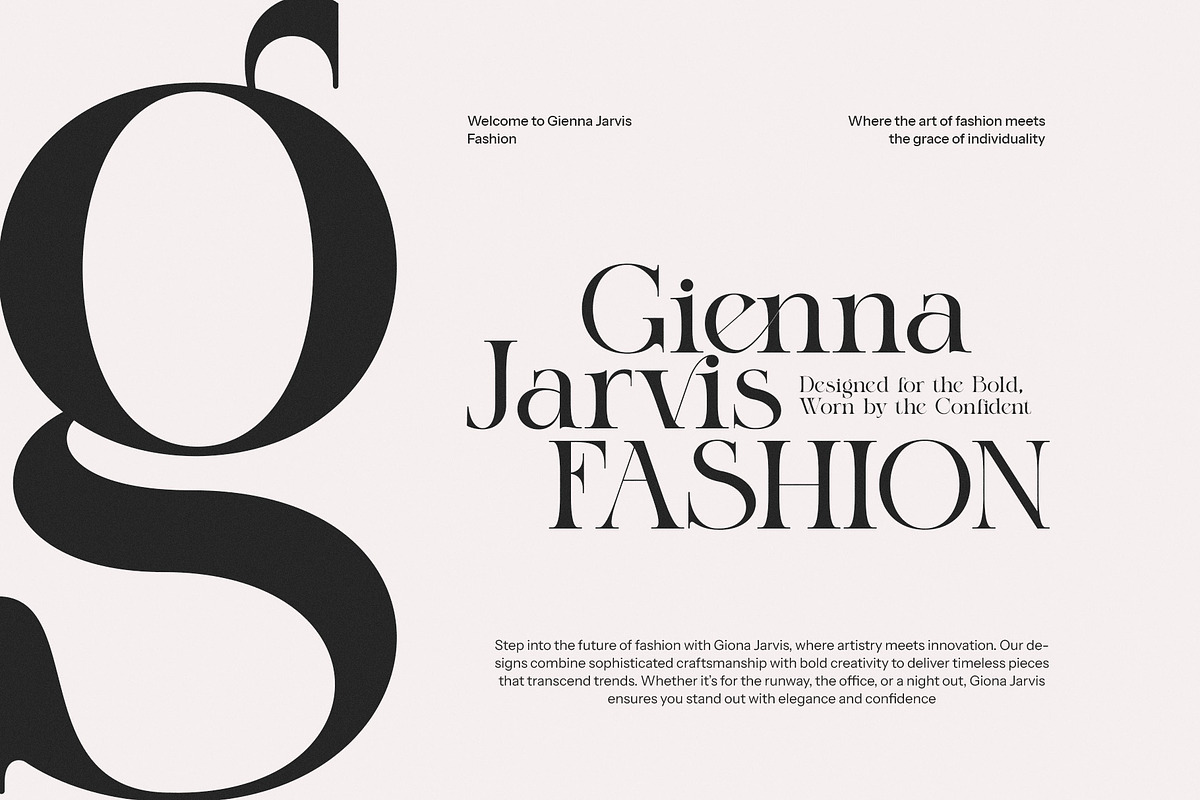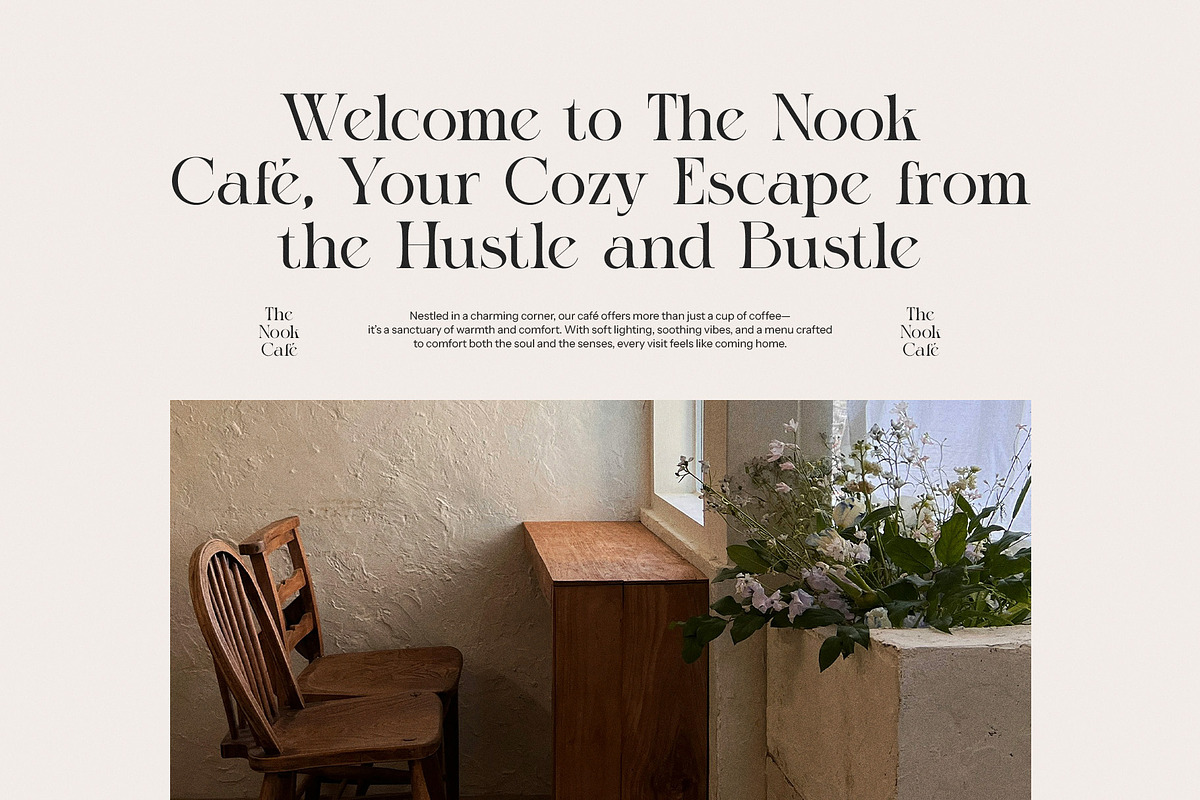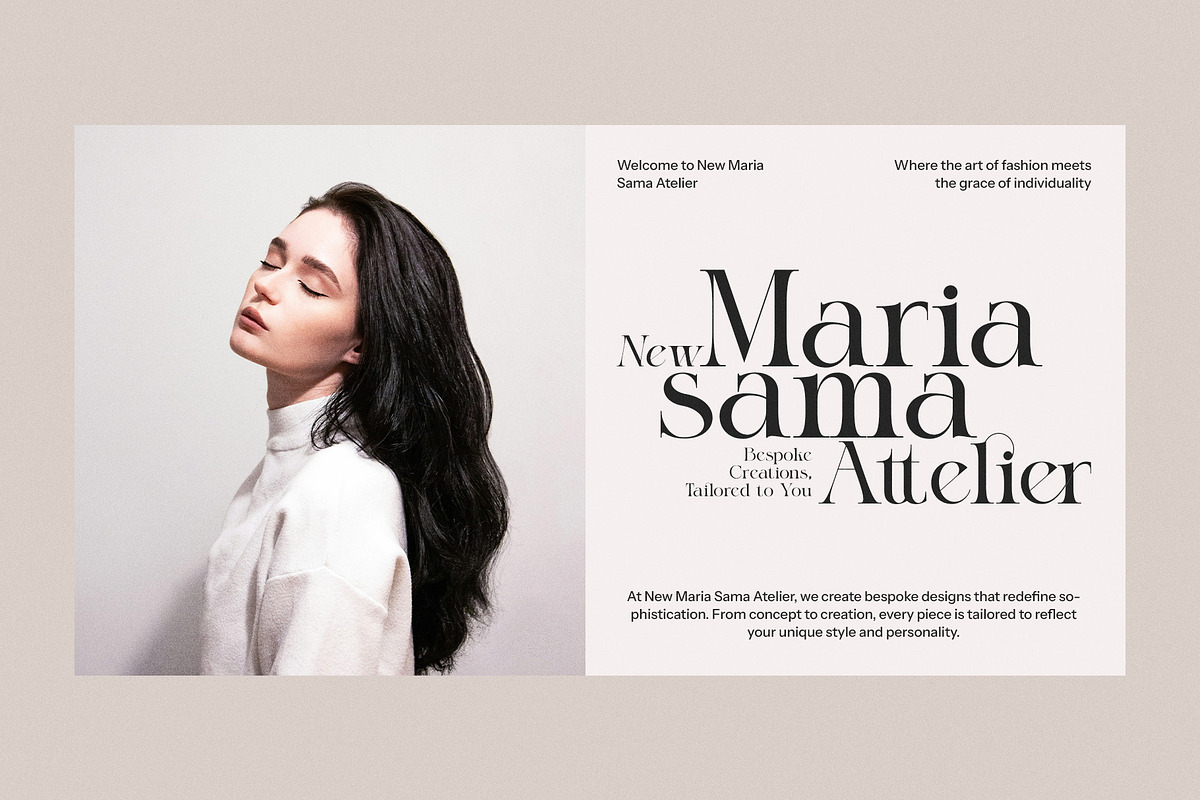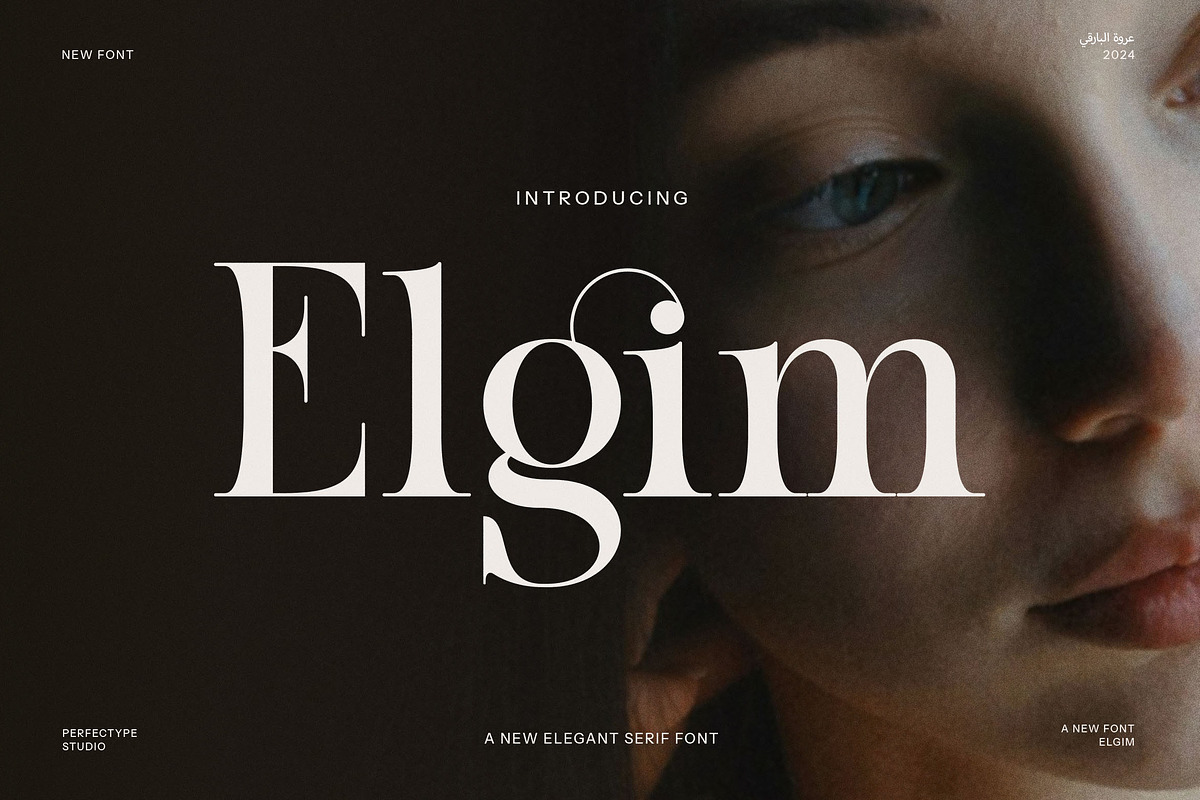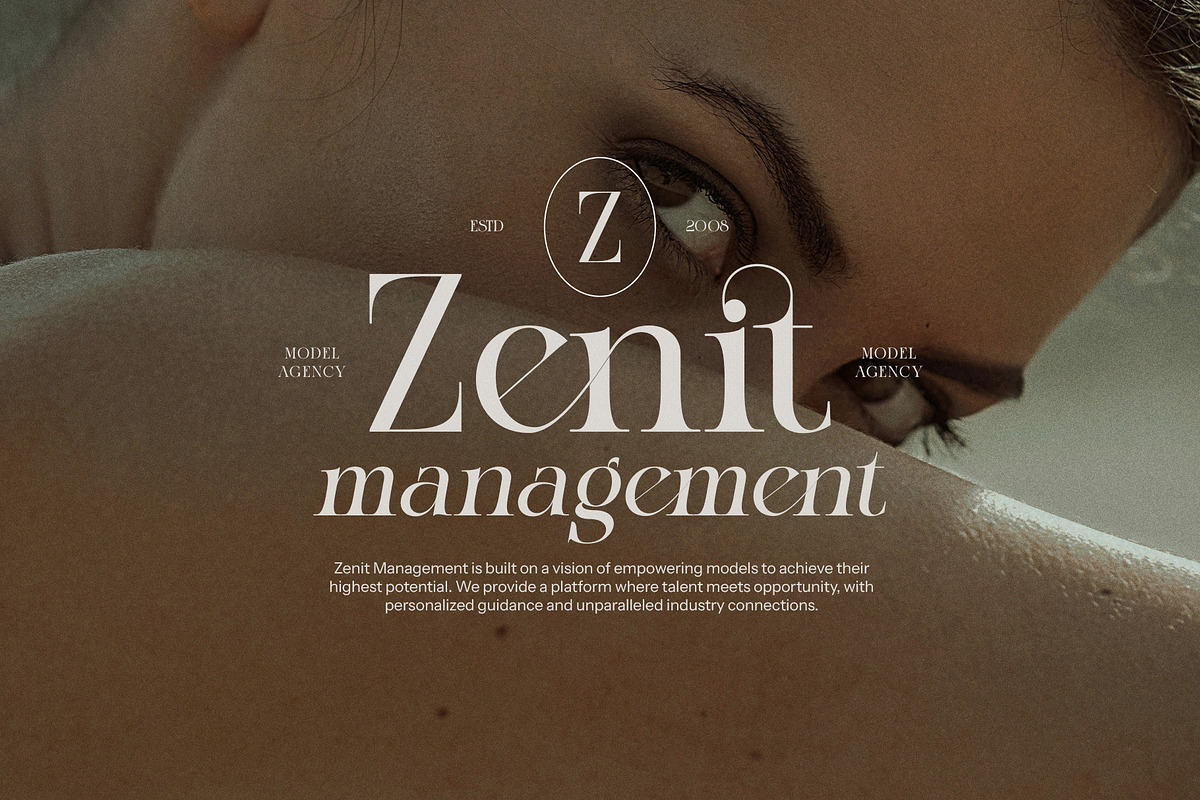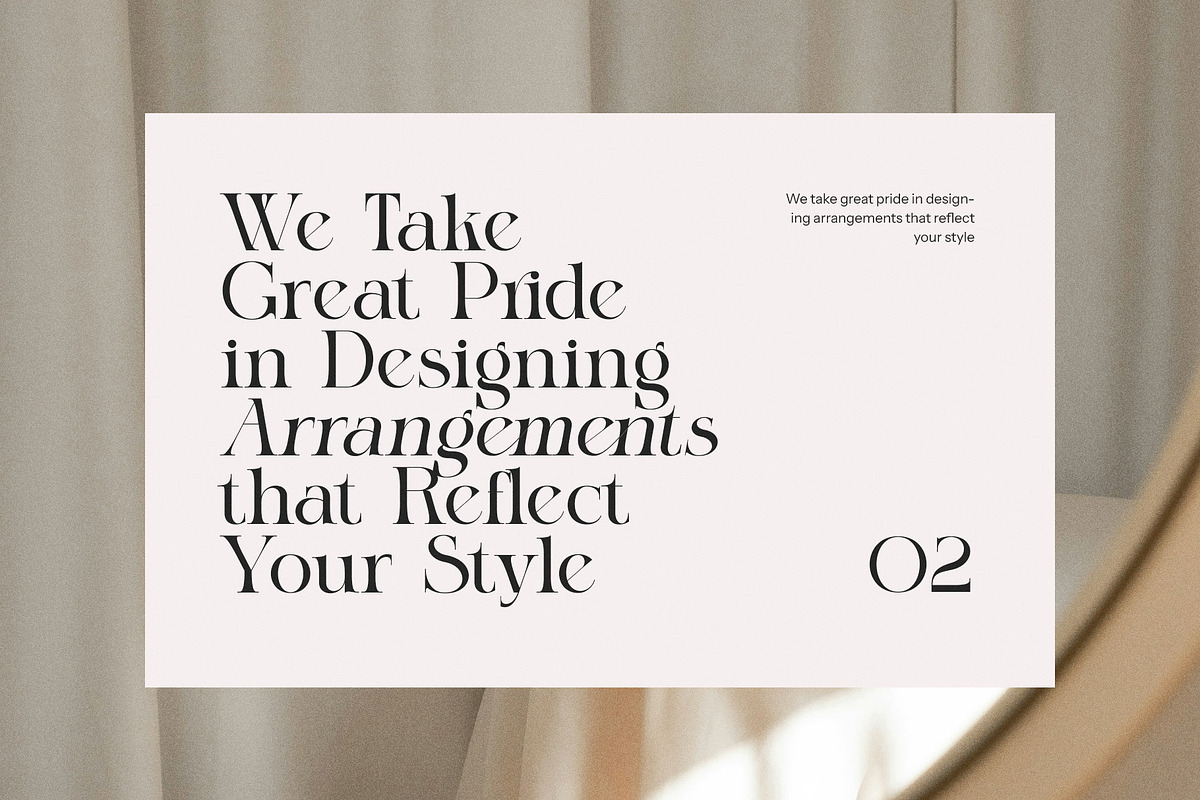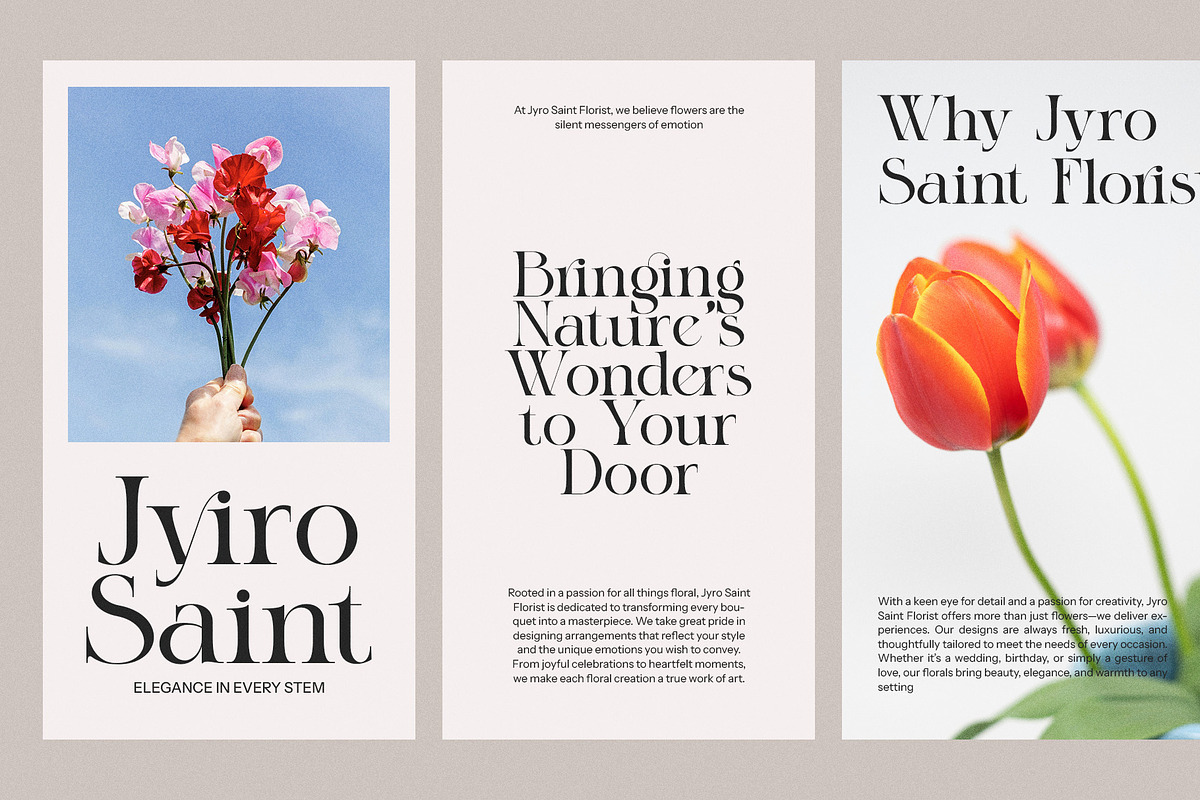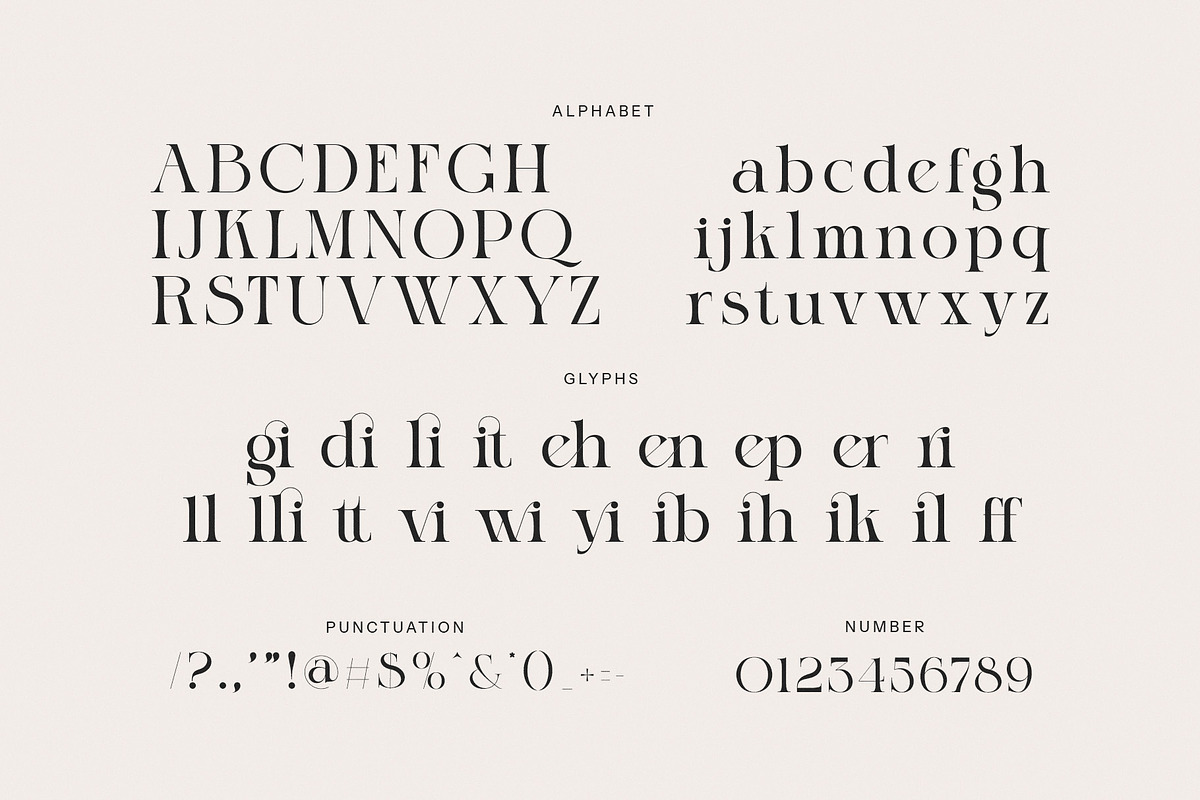
Elgim Elegant Serif Font
Elgim Elegant Serif Font is a beautifully crafted typeface that embodies sophistication and timeless style. Designed with a refined touch, this elegant and classy serif font features unique letterforms with balanced curves and sharp edges, making it an ideal choice for various design applications. Whether you are creating a logo, branding materials, or a sleek website layout, Elgim adds a luxurious feel that exudes professionalism and elegance. This font is particularly well-suited for projects in fashion, boutique branding, high-end products, and upscale advertising. Its versatility shines in editorial layouts, where its distinct serifs create a harmonious flow of text that is both readable and visually appealing. The font's graceful structure also makes it a perfect fit for food packaging, hospitality branding, and any design that aims to project quality and refinement. Elgim Elegant Serif Font stands out in both digital and print environments, ensuring your content resonates with an audience that values style and class. Its elegant aesthetic is perfect for modern luxury brands, elegant websites, and upscale magazines, giving your designs a polished and professional look. The font’s combination of classic serif detailing and modern flair makes it a standout choice for creators looking to elevate their projects with a sense of prestige and timeless beauty. Whether you are working on luxury goods, fashion, advertisements, or high-end web design, Elgim Elegant Serif Font will add a touch of sophistication that enhances the overall aesthetic of your project.